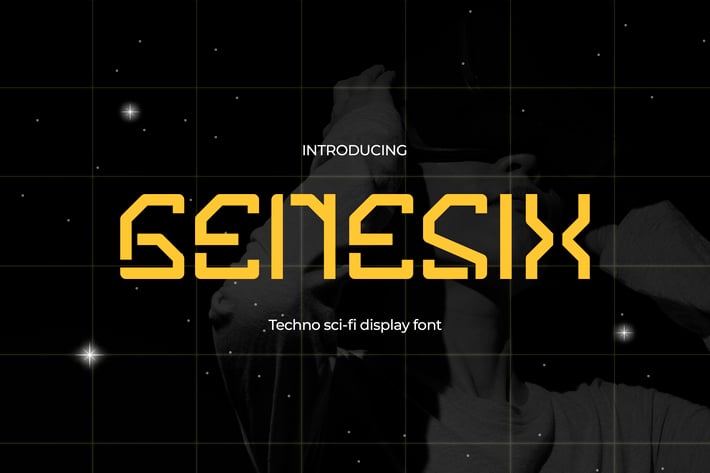
Genesix - The Futuristic Font
Step into the digital tomorrow with Genesix, a font that pulses with futuristic energy. Inspired by the sleek lines and sharp angles of techno and sci-fi worlds, Genesix embodies the robotic precision and otherworldly allure of cutting-edge design.
Crafted with meticulous care, Genesix transcends mere words. It becomes a visual portal, transporting your audience to the heart of digital landscapes. Ideal for logos, quotes, invitations, posters, greetings, packaging, branding, covers, events, headlines, and advertising, Genesix is the perfect companion for any project seeking a dose of digital audacity.